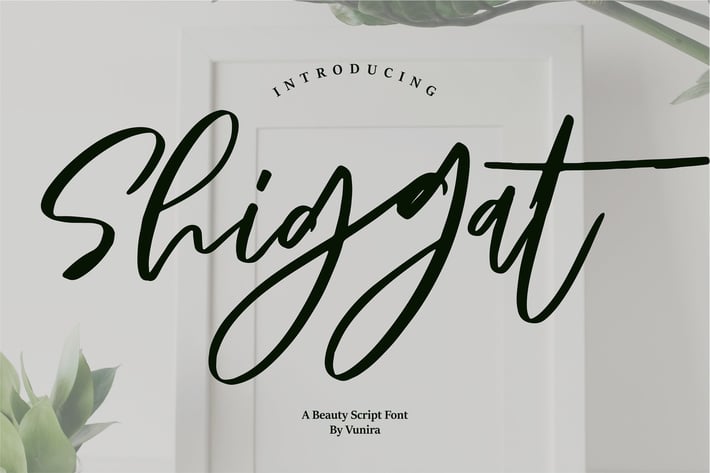
Shiggat | A Beauty Script Font
Shiggat | A Beauty Script Font with a calligraphy style, So beautiful on invitation like greeting cards, branding materials, business cards, quotes, posters, and more!